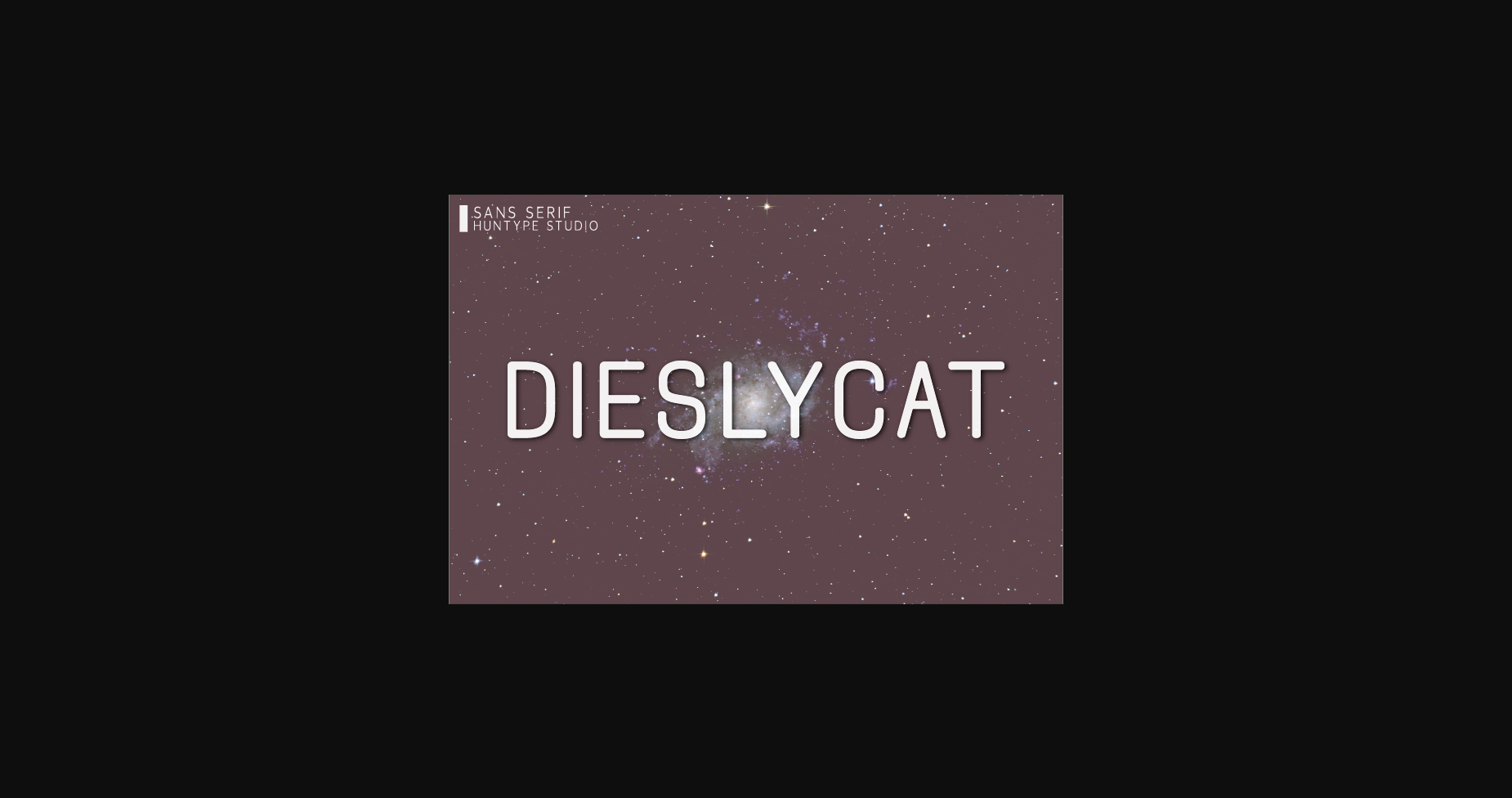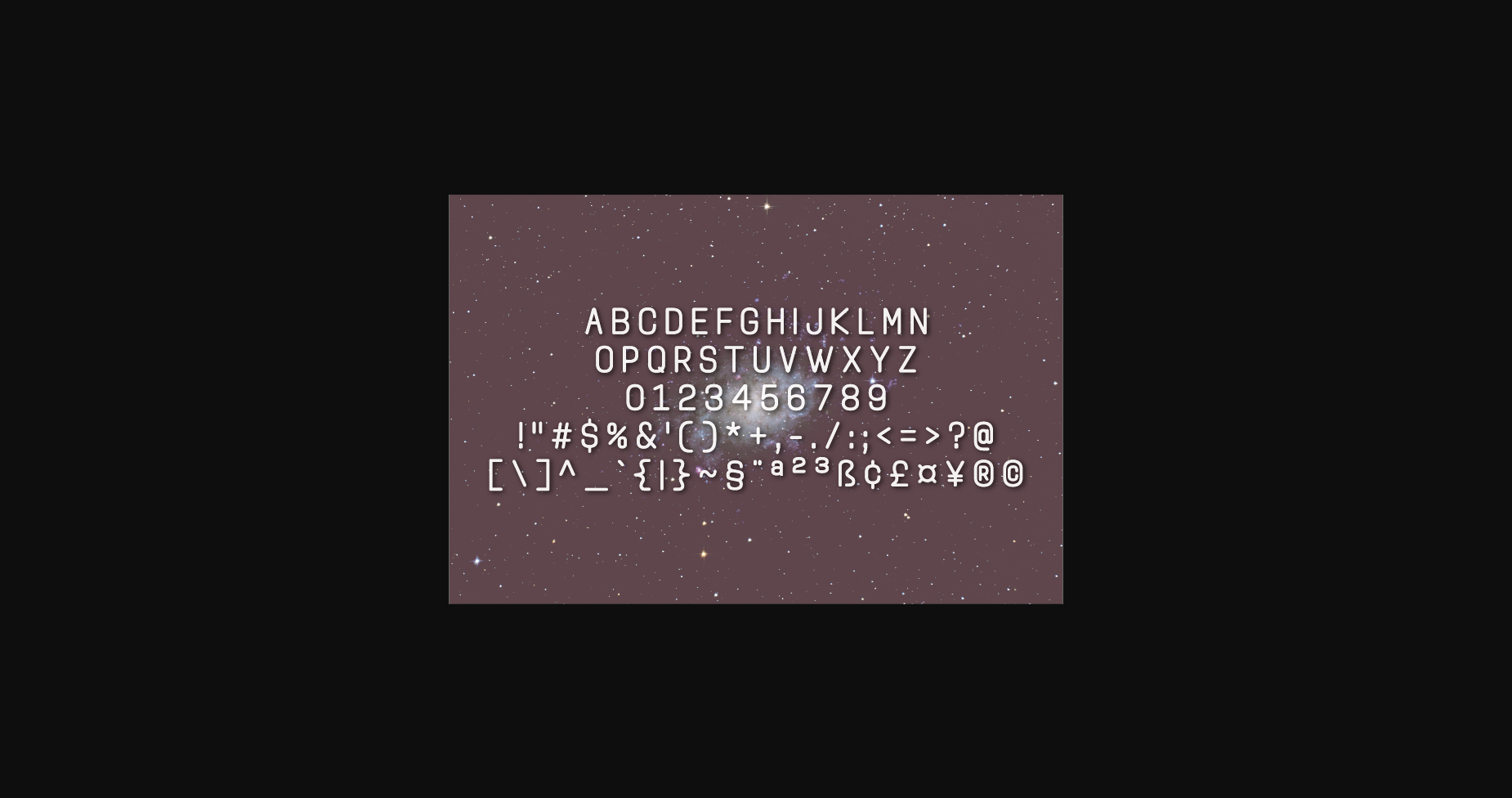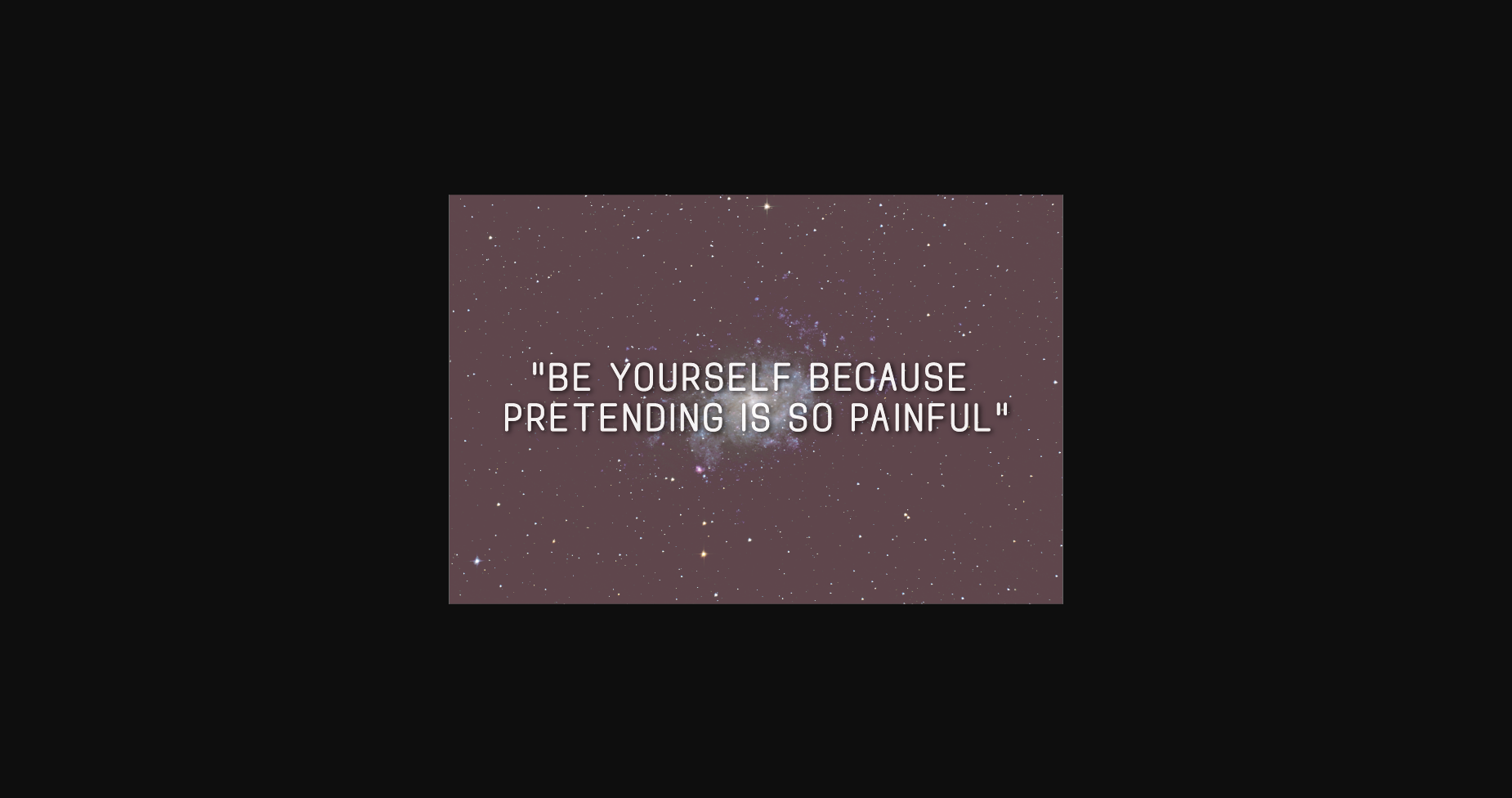
Dieslycat Font
About Dieslycat Font
Dieslycat is a minimal, yet elegant sans serif font. Suitable to a wide variety of designs due to its neat and simple style, this font has the potential to become your favorite go-to font, no matter the occasion!